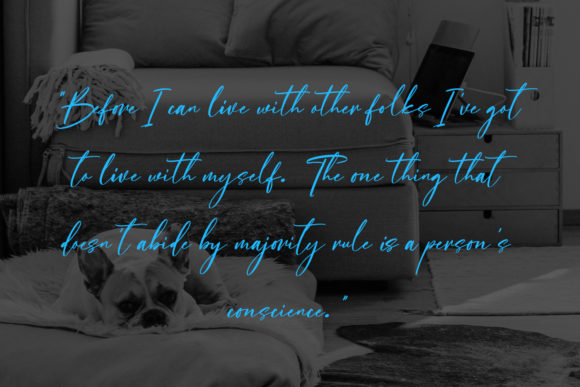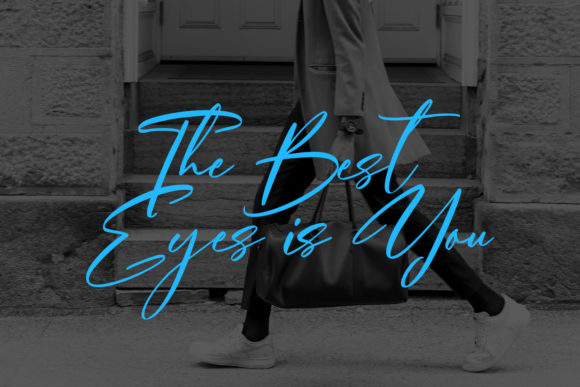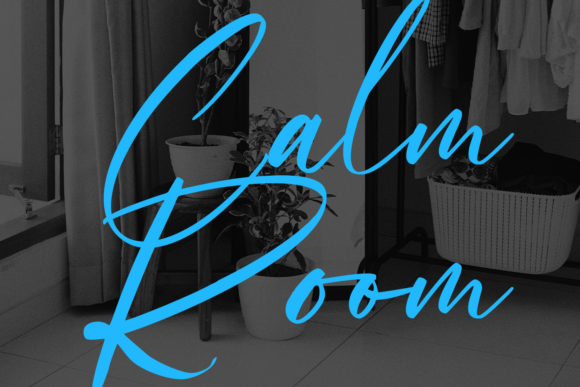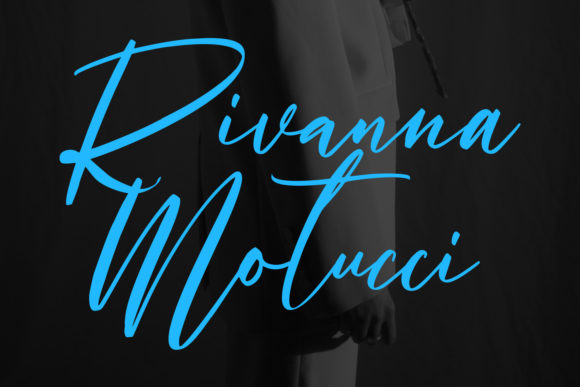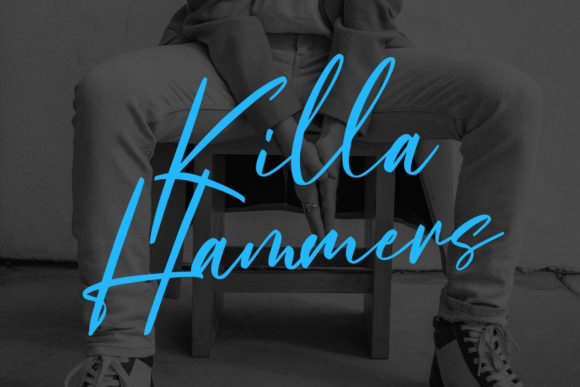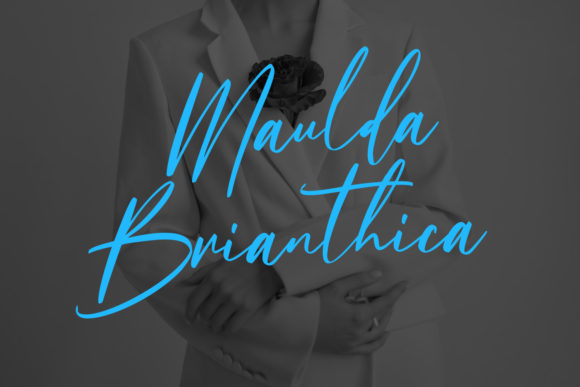
Introduction to Overlouds Font
Have you ever found yourself in a creative rut, staring at a blank page or screen, desperately searching for the perfect font to bring your vision to life? For designers, this moment of frustration is all too familiar. But what if you had access to a high-quality design resource that could elevate your project from ordinary to extraordinary?
Enter the Overlouds Font, a chic and refined script font that exudes sophistication and elegance. Its stylish alternates and ligatures make this font the perfect match for any creative project, from elegant wedding invitations to luxurious branding materials. Whether you’re a seasoned pro or just starting out, the Overlouds Font is a valuable addition to your design arsenal, and the best part? It’s available for free download, complete with a transparent background for seamless integration into your design.
Key Features of Overlouds Font
- Designed with a modern aesthetic, perfect for contemporary designs
- Comes in a single weight, making it easy to use in various design applications
Honest Review: Overlouds Font
As a designer, I’m always on the lookout for high-quality design resources that can elevate my creative projects. Recently, I stumbled upon Overlouds Font, and I must say, it’s a gem.
What works well: ✨ The font’s modern and sleek design makes it perfect for minimalist projects. It’s also incredibly versatile, suitable for both digital and print applications. The transparent background feature is a bonus, allowing for seamless integration with various design elements.
The font offers a range of styles and weights, making it easy to find the perfect fit for your project. The free download option is also a major plus, making it accessible to designers of all levels.
Limitations: ⚠️ While the font is high-quality, it may not be suitable for projects that require a more traditional or ornate feel. Additionally, the font’s design may not be as bold or eye-catching as some other options.
Overall, I’m impressed with Overlouds Font. It’s a solid design resource that’s perfect for designers looking for a modern and sleek font. With its transparent background feature and range of styles, it’s a great addition to any design toolkit.
- Modern and sleek design
- Transparent background feature
- Range of styles and weights
The Overlouds Font is ideal for creating eye-catching headings, titles, and captions in your designs. It’s also great for adding a touch of elegance to your presentations and documents.